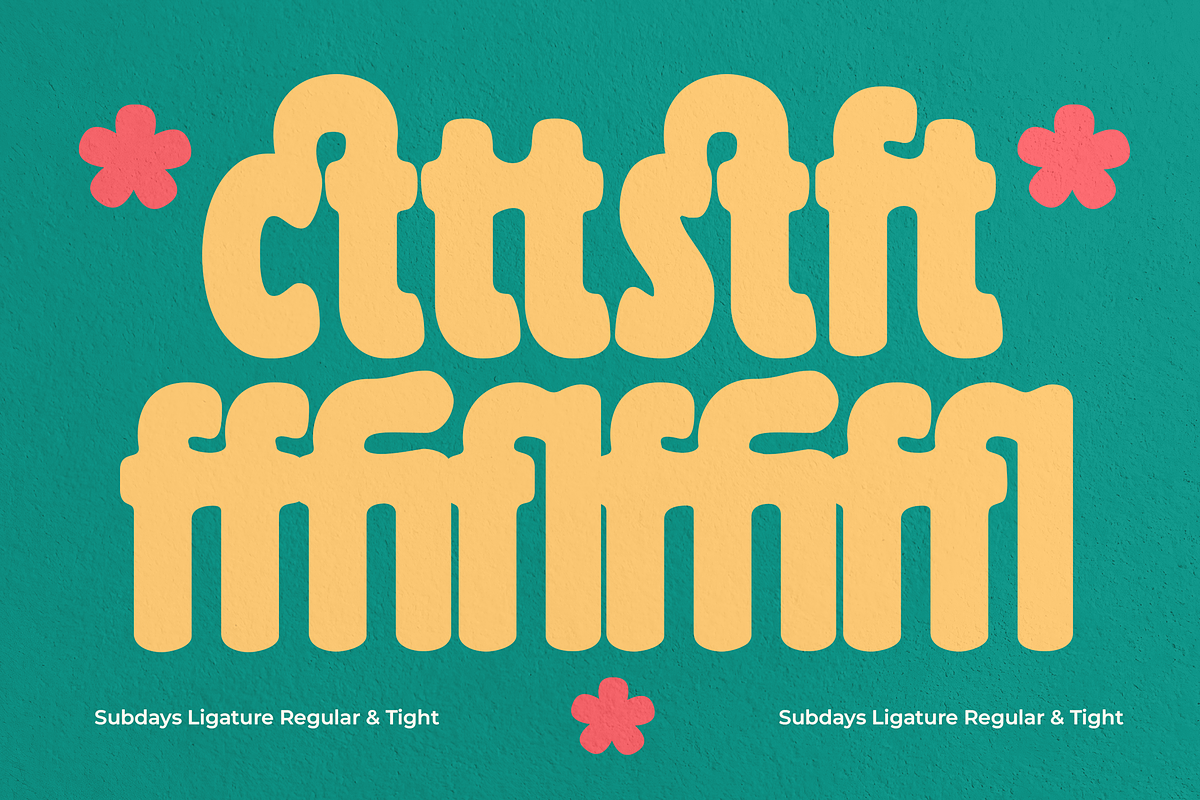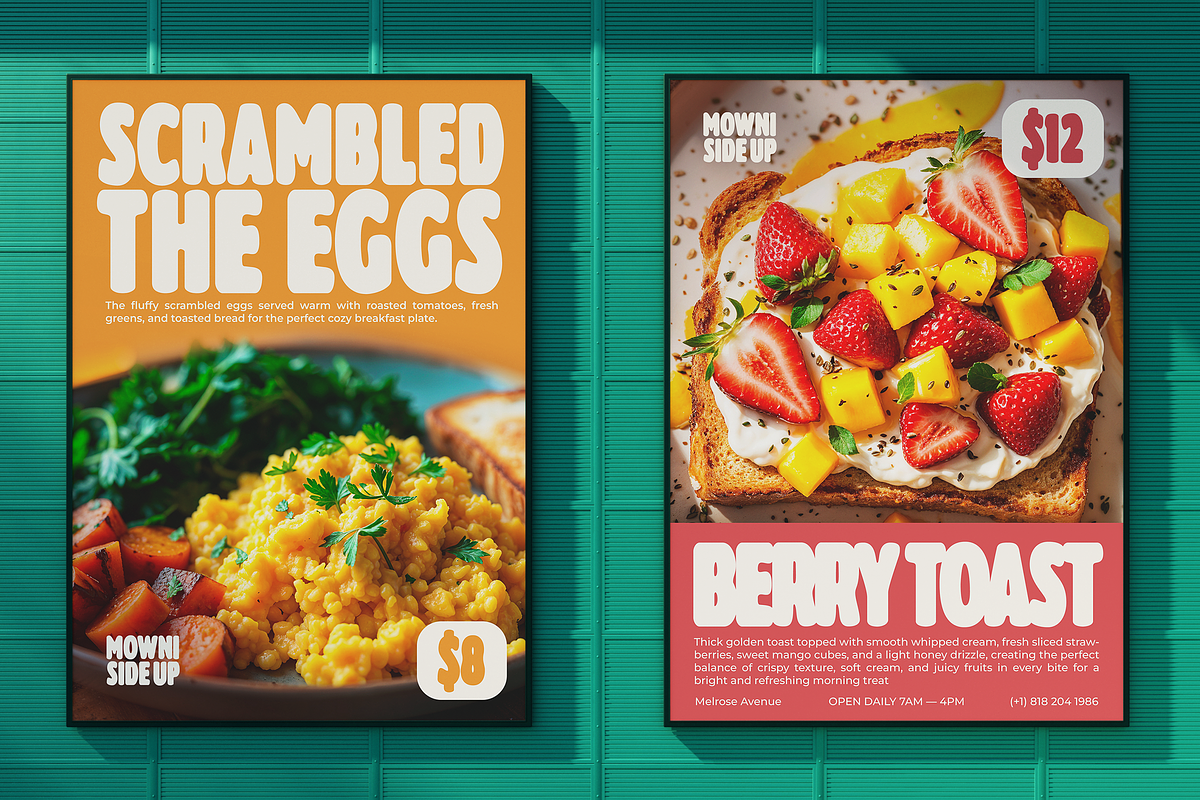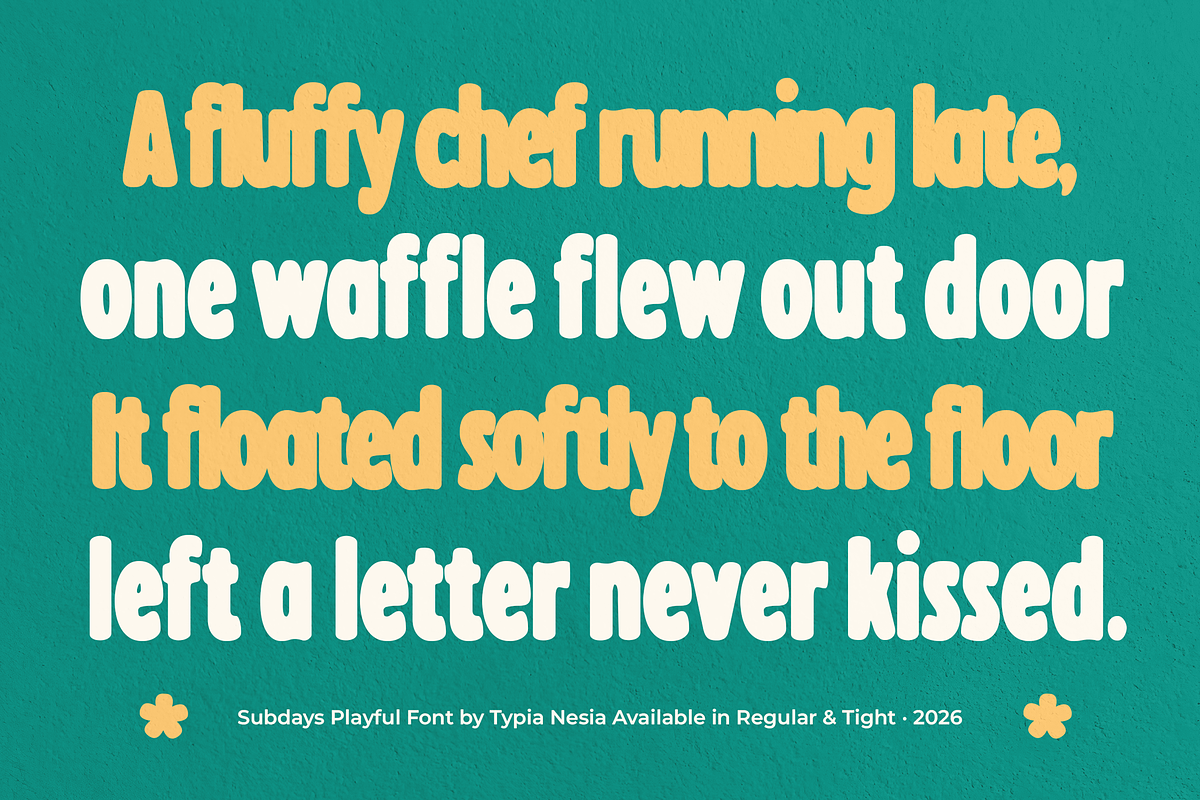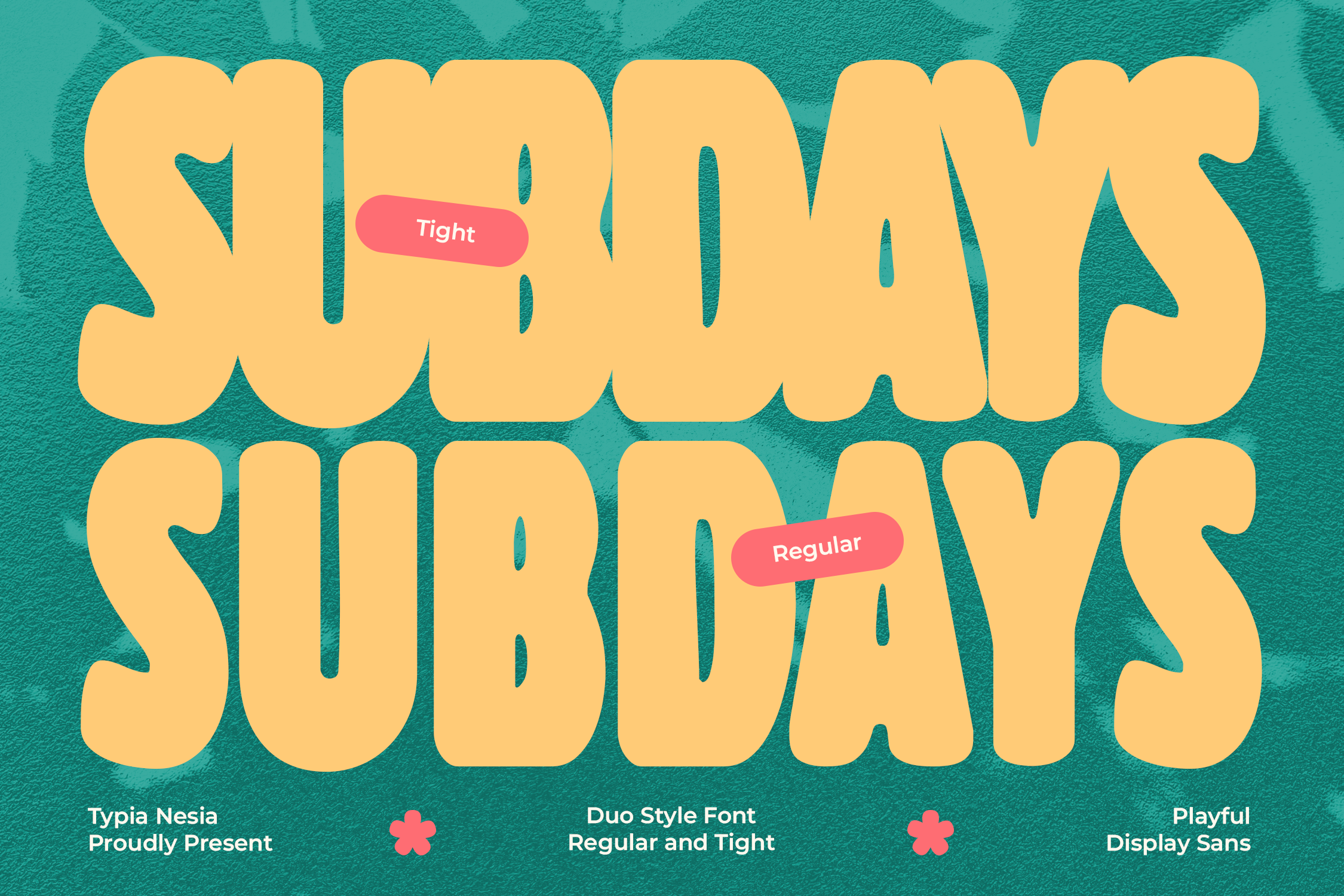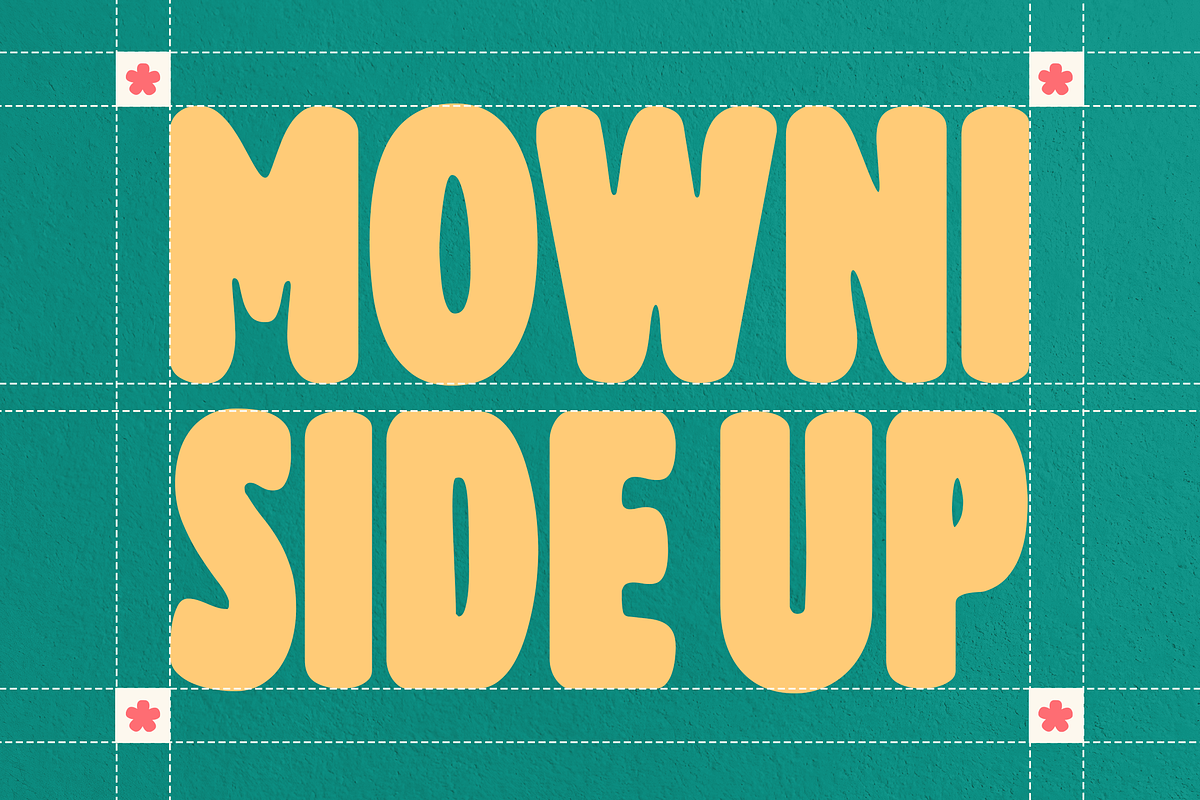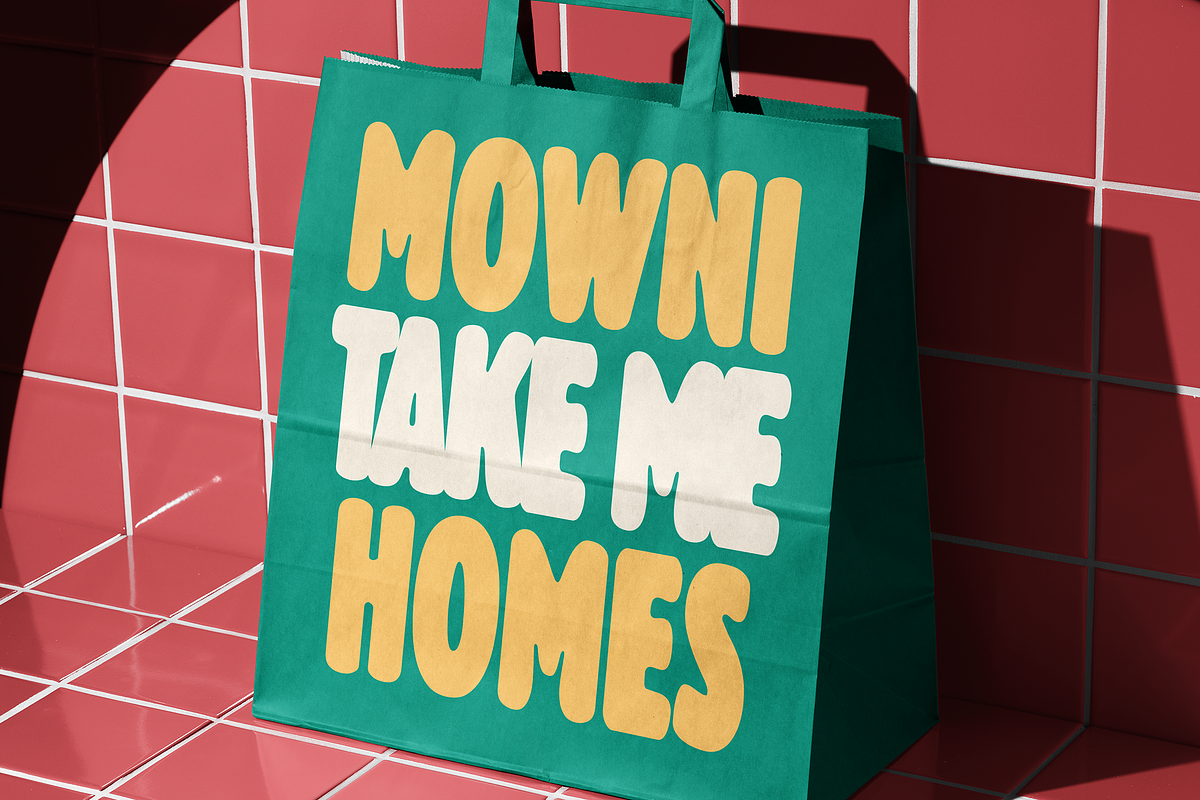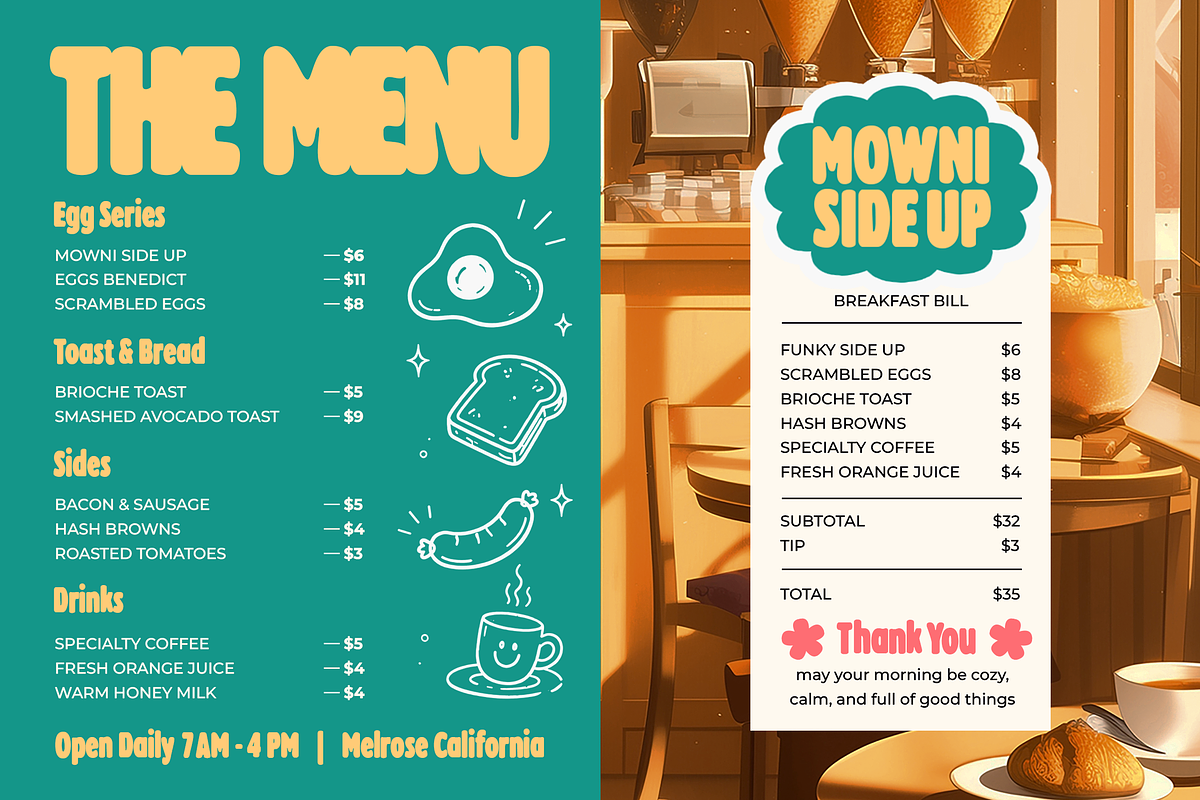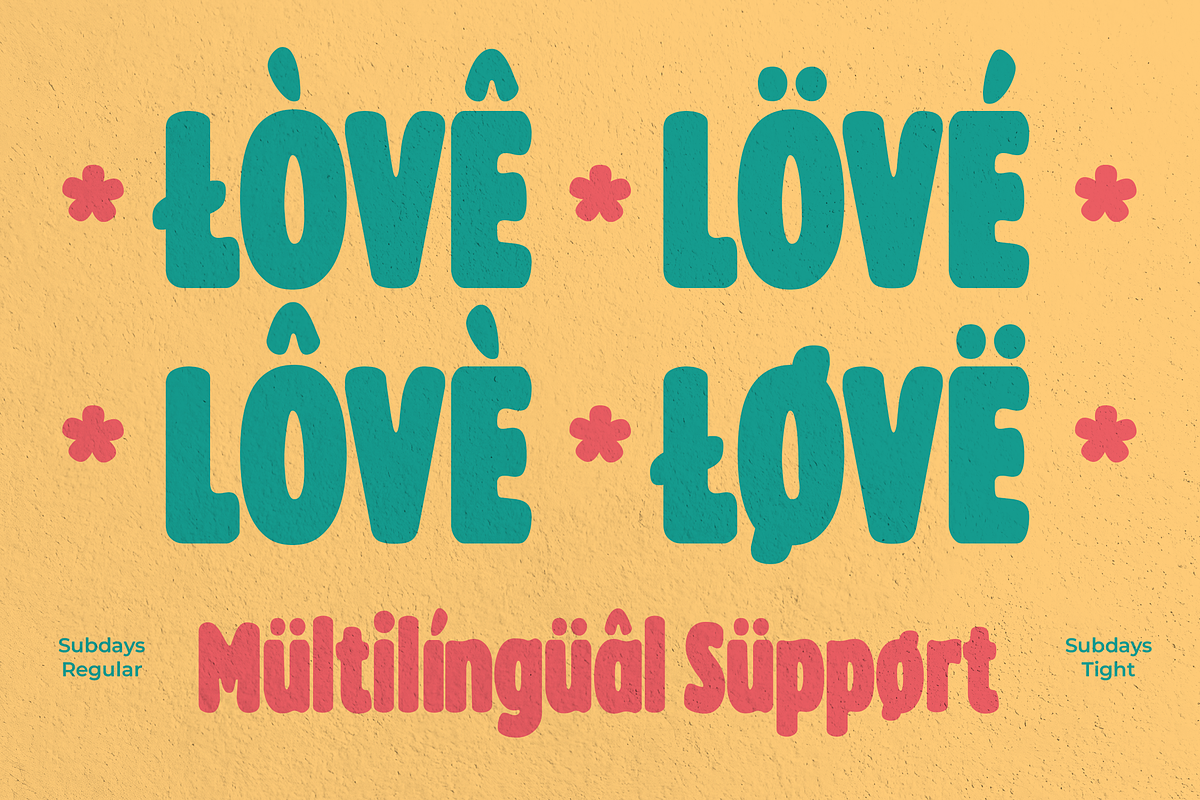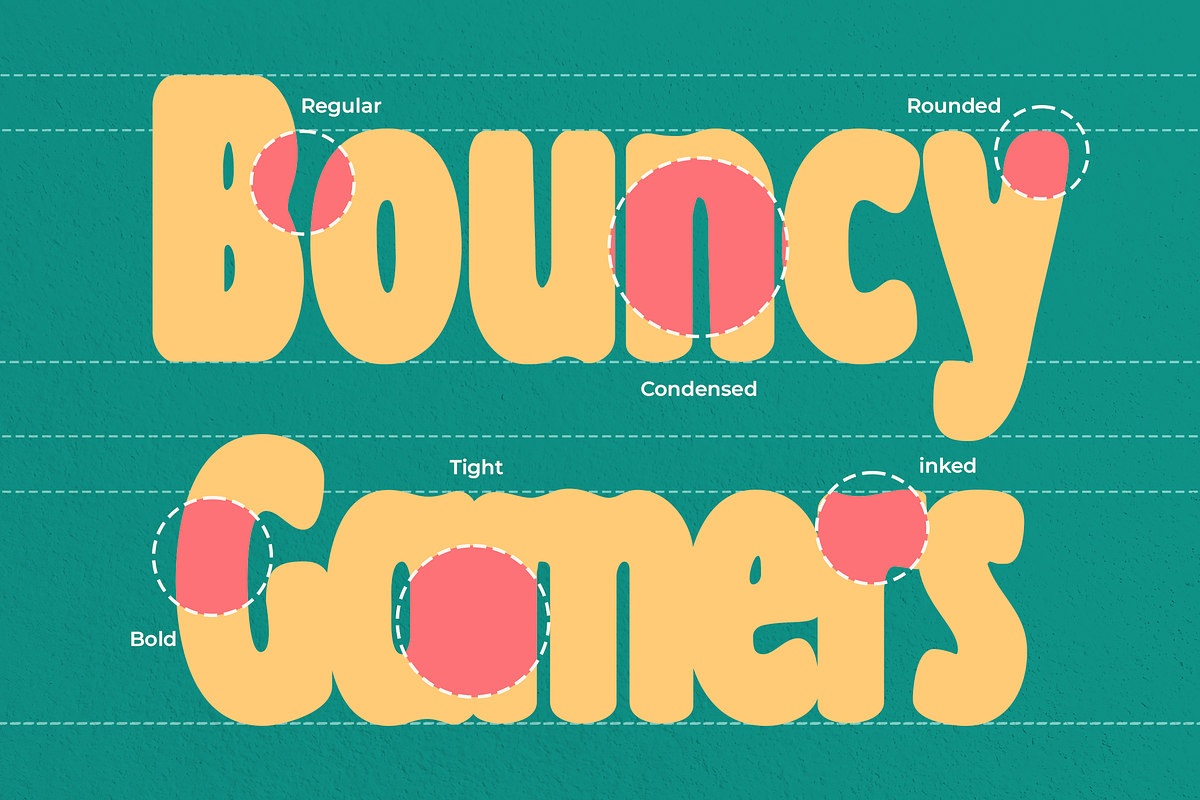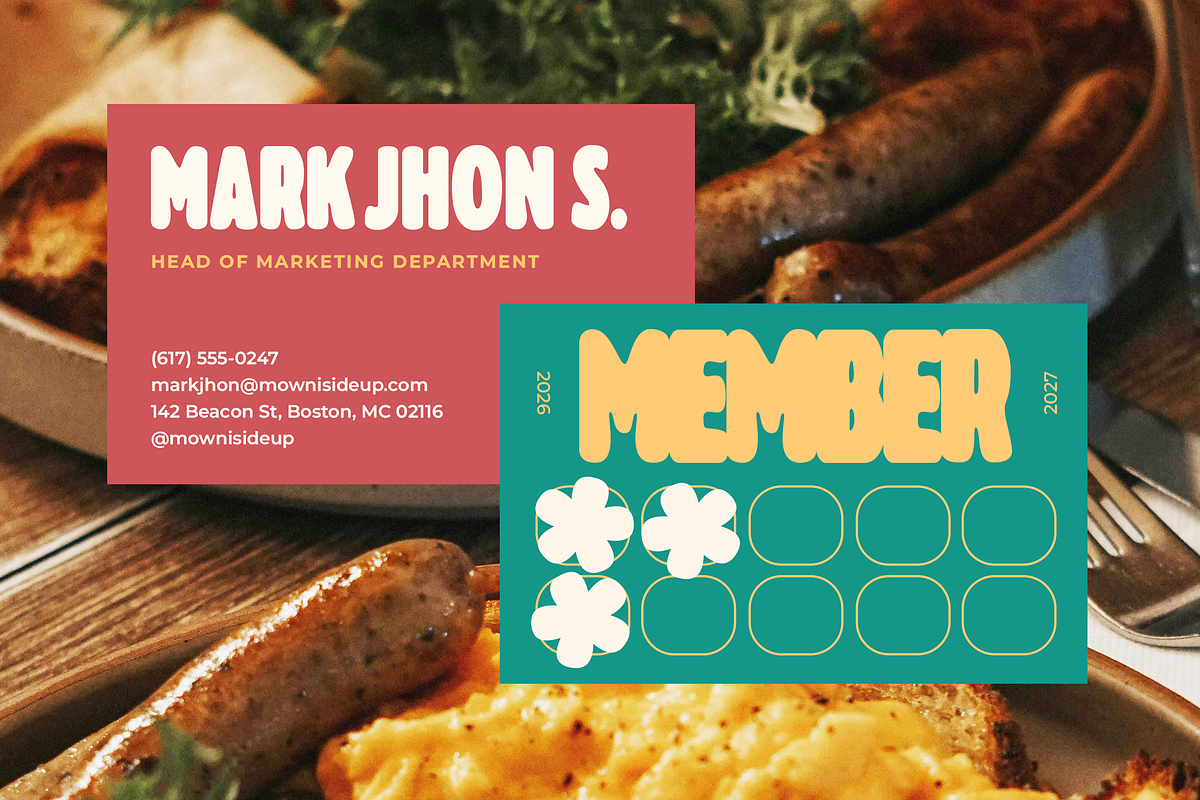
Subdays – Playful Retro Sans Font
Subdays – Playful Chubby Display Sans Font with Retro Lifestyle Style
Subdays is a playful chubby display sans font designed to bring energy, warmth, and personality into your branding. Its chunky rounded shapes and bold presence make it ideal for food and beverage brands, cafés, restaurants, snack packaging, posters, social media graphics, and other lifestyle-focused creative projects. Available in Regular and Tight styles with multilingual support, Subdays offers flexibility while maintaining its cheerful and highly memorable character.
Give your branding a bold, nostalgic personality that people instantly remember with Subdays.